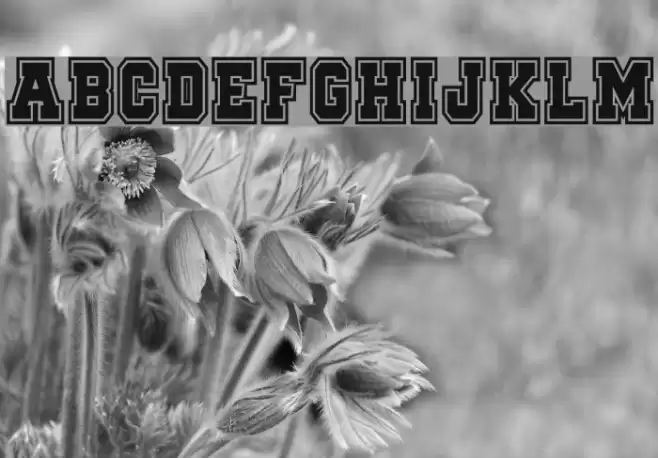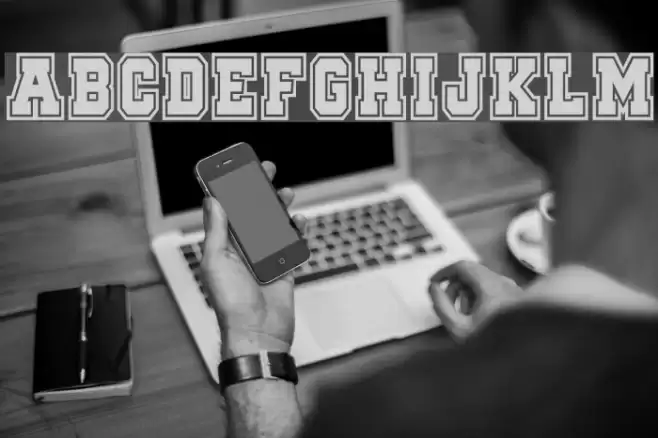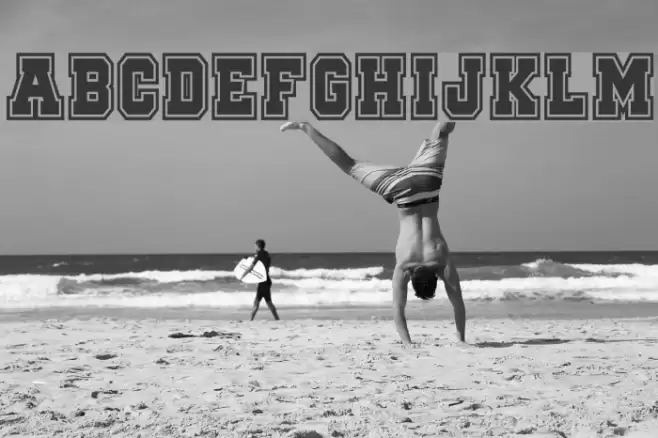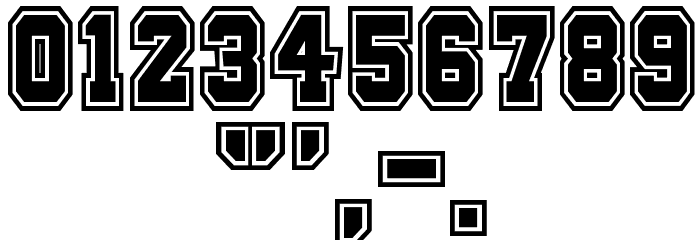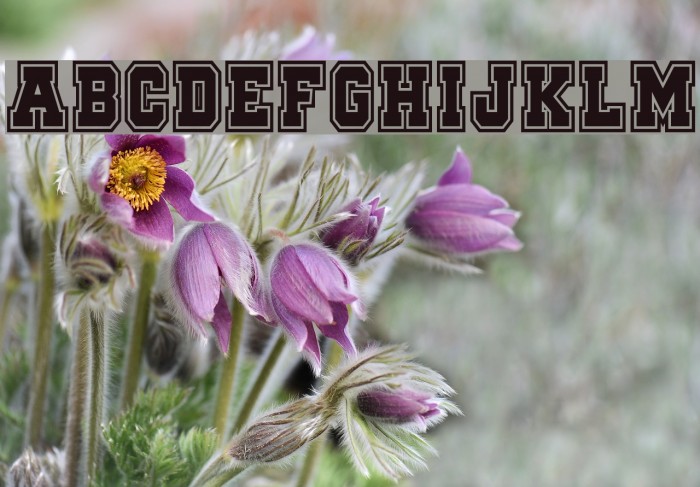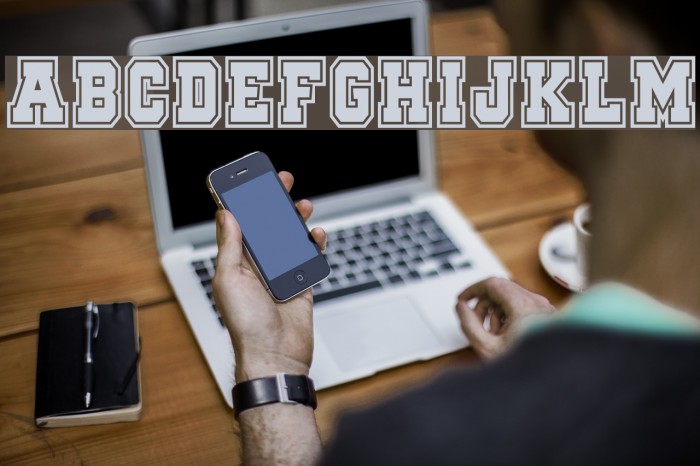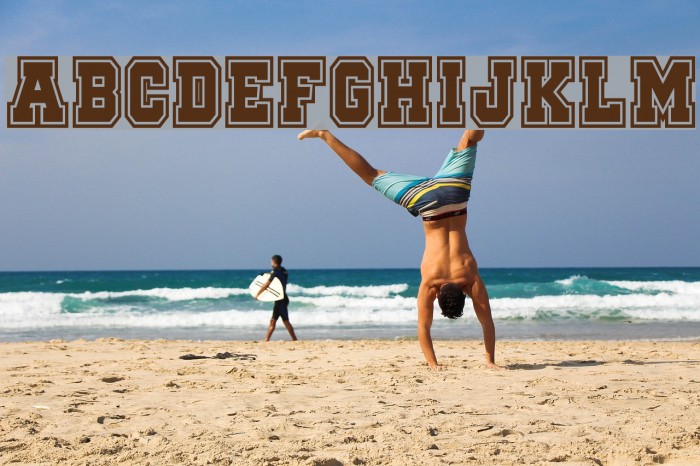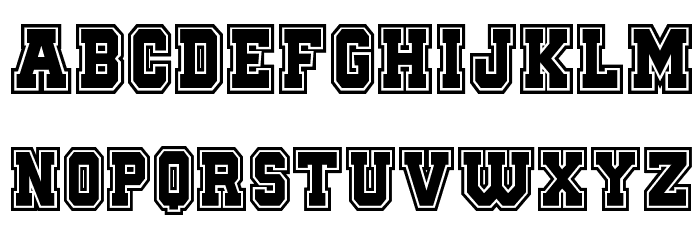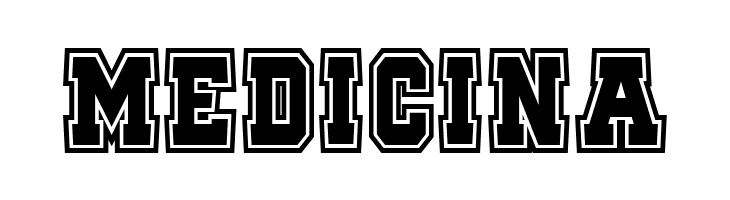
Quaterback Fight Campus Font
Quaterback Fight Campus Description
This font features a bold, collegiate style with a strong, blocky appearance that is reminiscent of traditional varsity lettering. The characters are outlined, adding a layer of depth and making them stand out prominently. Each letter and number is designed with a uniform thickness, contributing to a cohesive and structured look. The font's design is ideal for creating a sense of strength and tradition, often associated with sports teams and academic institutions. The spacing between characters is tight, enhancing the compact and impactful nature of the text. This font is perfect for projects that require a bold statement, such as team jerseys, sports banners, or event posters.
A bold, collegiate-style font with outlined, blocky characters ideal for sports and academic themes from Uncategorized fonts.
- Proposed Projects: Ideal for sports team branding, academic institution logos, event posters, and merchandise.
- Character Spacing: Tight
- Overall Style: Classic